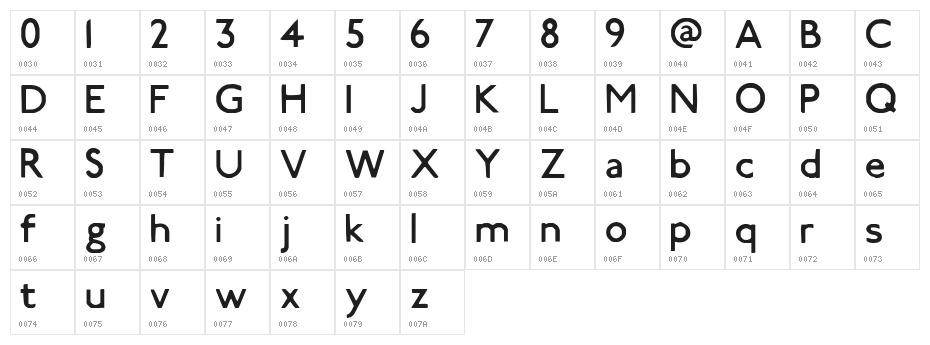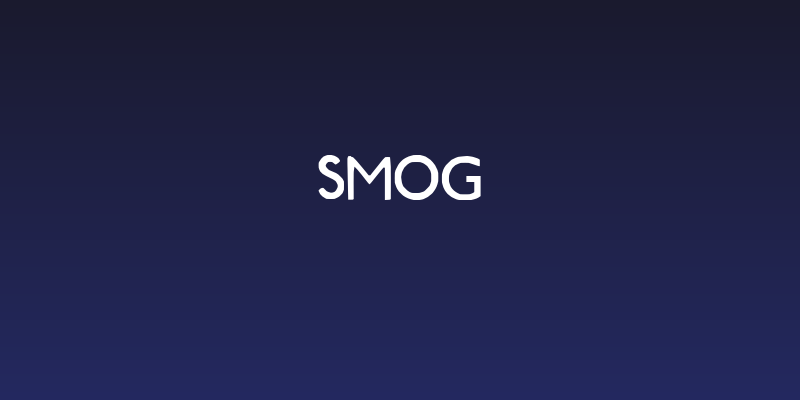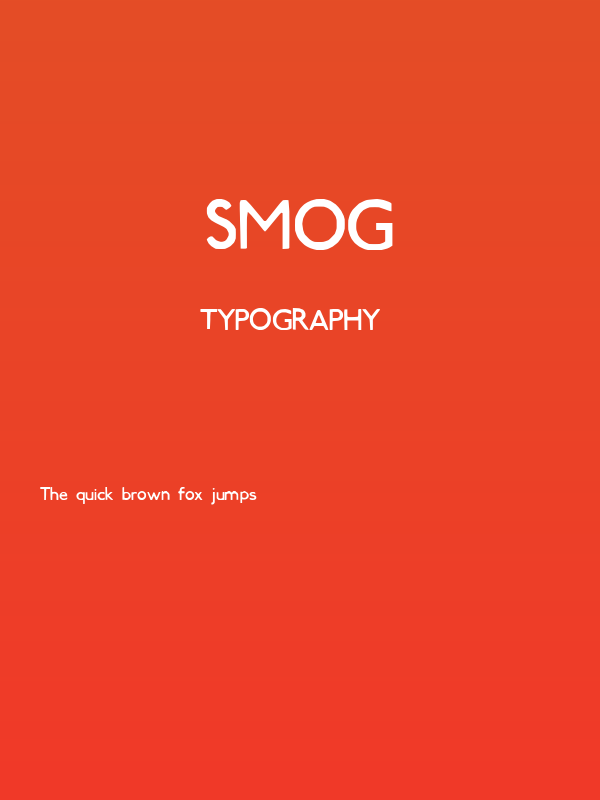
Smog Font
Smog Description
This font features a modern sans-serif style with clean, geometric lines and a uniform stroke width. The characters are well-balanced, offering a contemporary and minimalist aesthetic. The uppercase letters are bold and assertive, while the lowercase letters maintain a consistent height and width, providing a harmonious look. The numerals are clear and legible, making them suitable for various design applications. The special characters are distinct and integrate seamlessly with the rest of the typeface, ensuring versatility in usage.
| Use Case | Headlines, Logos, Web design |
| Proposed Projects | Ideal for branding, advertising, web design, and editorial projects that require a modern and clean aesthetic. |